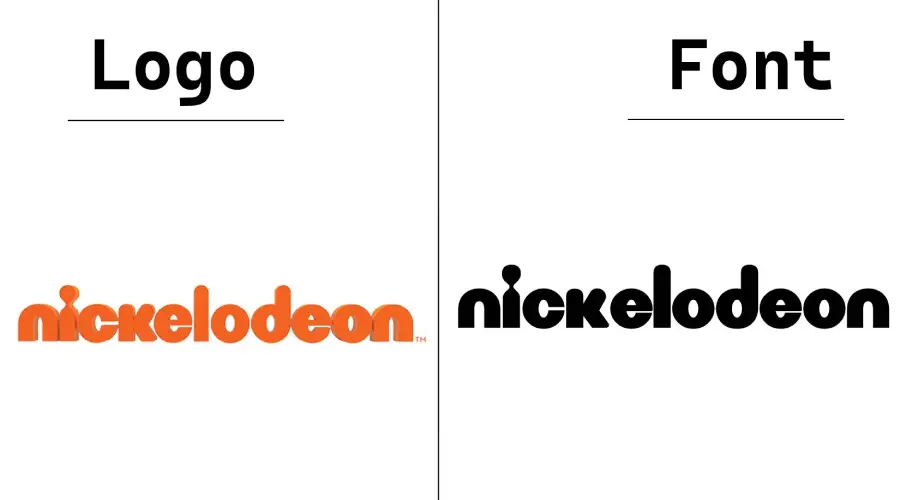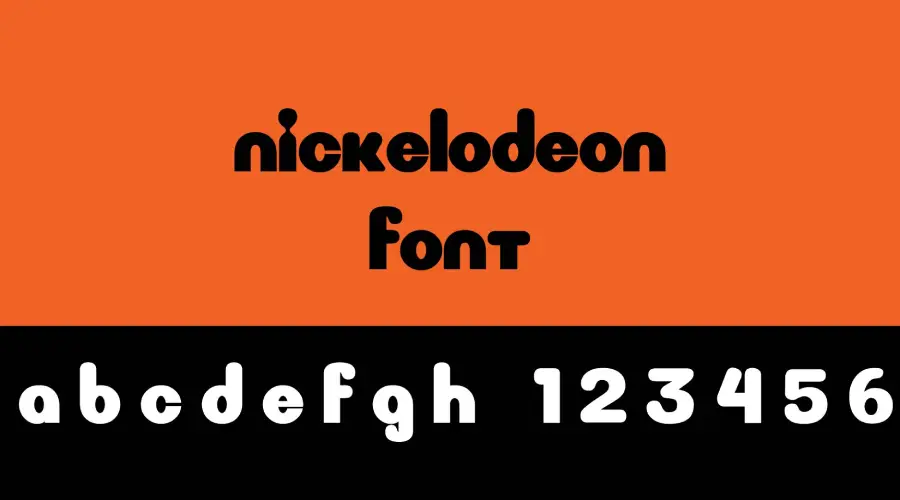
Nickelodeon is a popular cable television network that specializes in children’s programming. It is known for its colorful and playful logo, which features a splat shape and a custom-made font. But what font does Nickelodeon use for its logo and website? And how can you use it for your own design projects? In this article, we will explore the history and characteristics of the Nickelodeon font. We will also explore some alternatives and similar fonts that you can download for free.
Font Used In The Nickelodeon Font
The font that is used for the word “Nickelodeon” in the logo is not a standard font that you can find online. It is a custom-made font that is exclusive to the company. However, there are some fonts that are very similar to it and can be used as substitutes.
One of these fonts is New LiteBulb, which was designed by 538Fonts. It is a free font that mimics the shape and style of the Nickelodeon wordmark. It is available in uppercase letters only.
Similar Fonts
If you are looking for some alternative or similar fonts, here are some suggestions:
- Some Time Later: SpongeBob SquarePants inspired this font. Its one of the most popular shows on Nickelodeon. It is based on the lettering used for the show’s title cards and captions.
- Hawaiian Kids: Similar to the Nickelodeon logo, this font has a tropical and fun style. It is suitable for children’s projects and themes. It was designed by Heaven Castro.
- Bob Sponge: This is another font that was inspired by SpongeBob SquarePants, but it has a more cartoonish and playful style. It is based on the lettering used for the logo and the credits of the show.
Nickelodeon font is a unique and recognizable part of the brand’s identity and has a long and interesting history. It is not a standard font that you can easily find online, but there are some similar fonts that you can use as substitutes. You can also use an online tool to generate your own text with the font style. Whether you are a fan of Nickelodeon or not, you can appreciate the design and impact of this font.